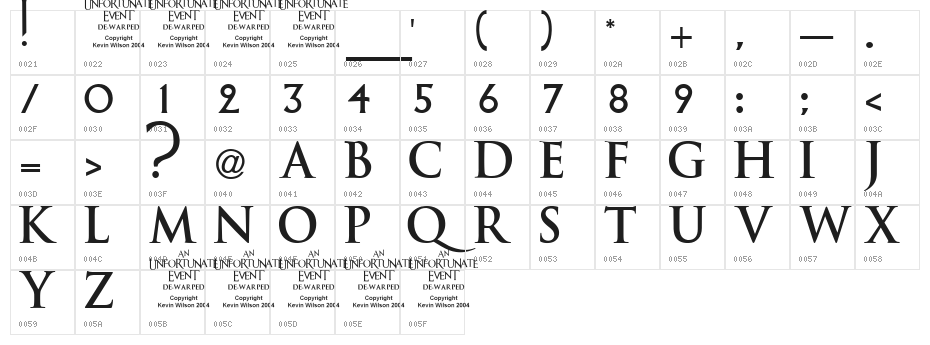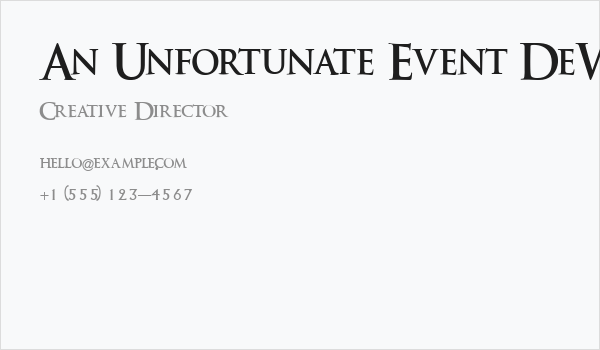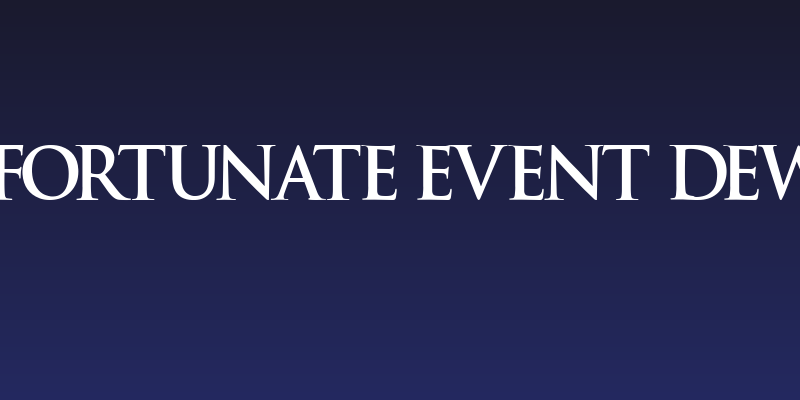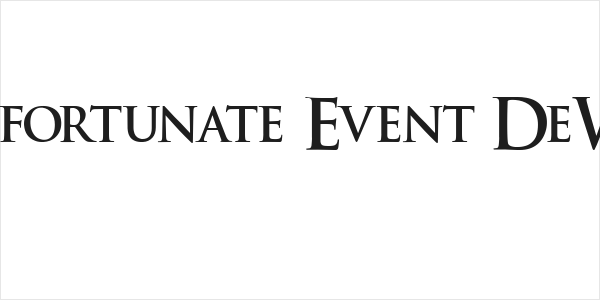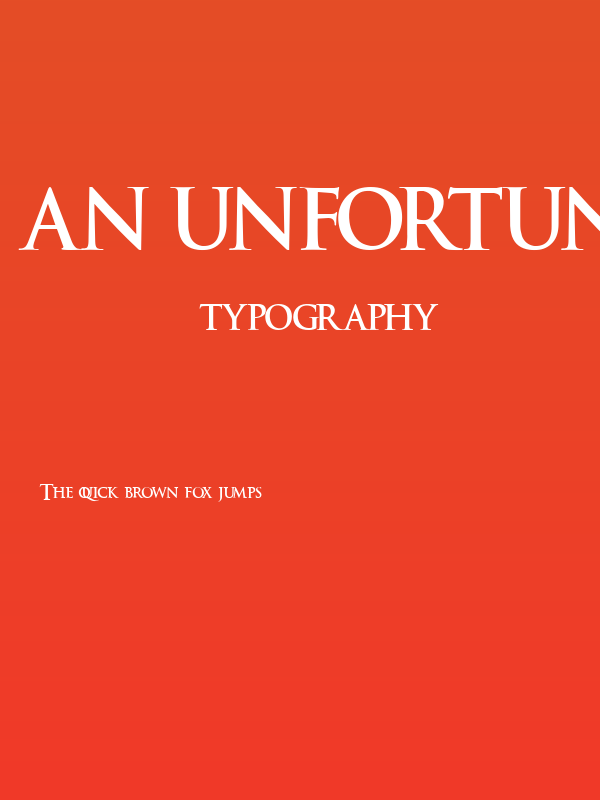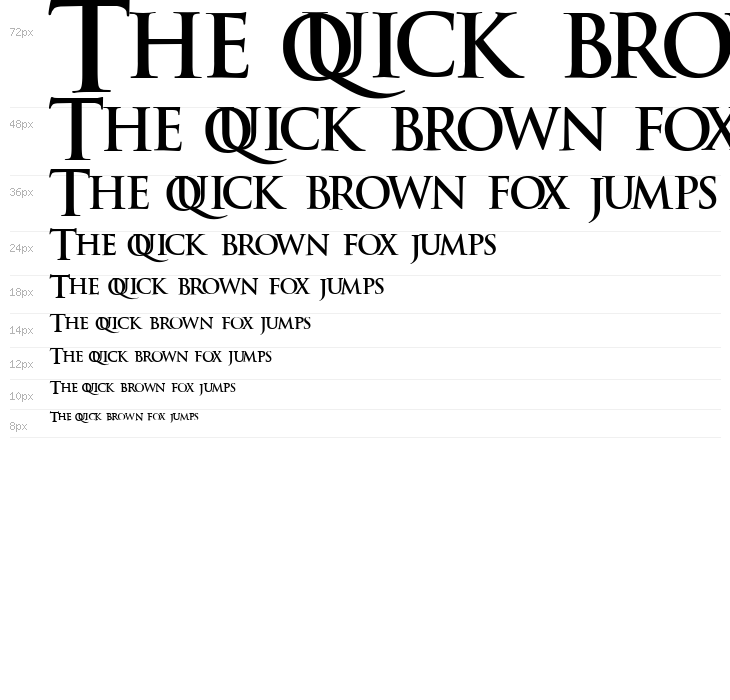
An Unfortunate Event DeWarped Font
An Unfortunate Event DeWarped Description
This font features a classic serif style with elegant, sweeping curves and a sophisticated appearance. The uppercase letters are bold and commanding, while the lowercase letters maintain a refined and balanced look. The numerals are clear and distinct, making them easily readable. Special characters are designed with a touch of flair, adding to the font's overall charm. The font's design is reminiscent of traditional typefaces, yet it carries a modern twist that makes it versatile for various applications.
| Proposed Projects | Ideal for book covers, formal invitations, branding, and editorial design. |